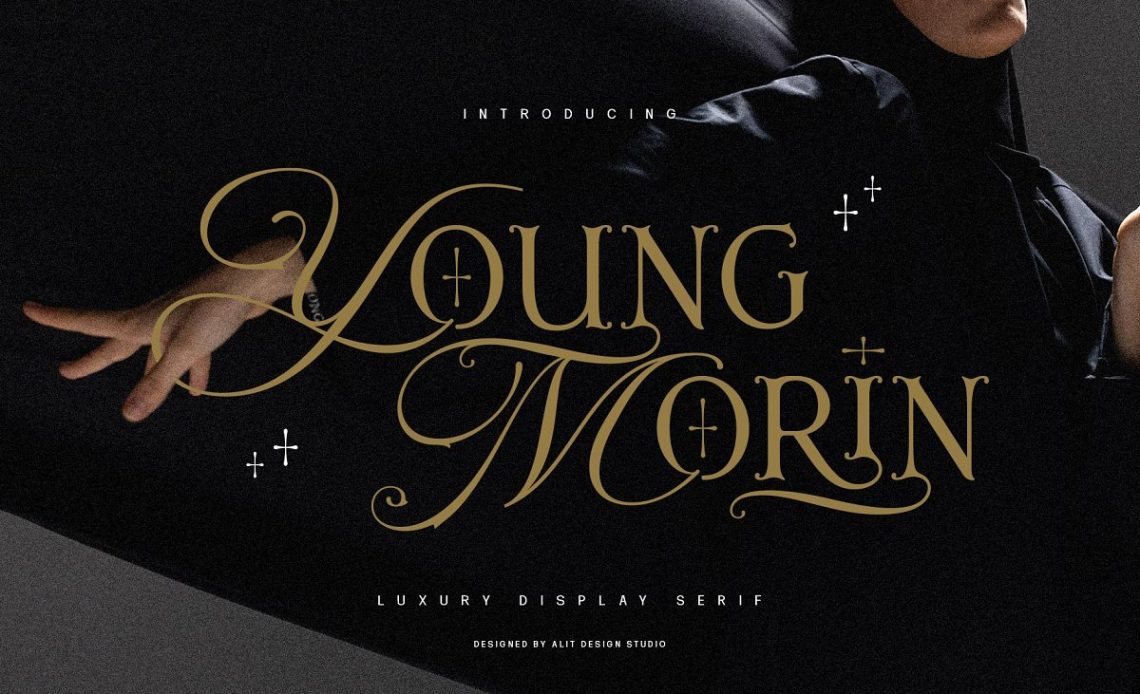
Introducing the Young Morin Typeface, a captivating and versatile font for poster designs. Created by the talented designer Alit Suarnegara, this font combines an elegant script style with a classic serif font, resulting in a bold yet modern and elegant design.
Inspired by the timeless Roman design, the Young Morin font incorporates contemporary elements to stay in line with current trends. This unique combination creates a design that is both frightening and captivating, making it perfect for young individuals who dare to be different and stand out from the crowd.
Whether you're designing magazine covers, brochures, flyers, Instagram ads, or Canva designs, the Young Morin font will add a touch of uniqueness and bravery to your creations. Its modern and bold concepts will elevate your designs and attract attention from your target audience.
What sets the Young Morin font apart is its ease of use. It is compatible with both design and non-design programs, thanks to its Unicode (PUA) support. With 660 glyphs and numerous unique and interesting alternative options, you'll have endless possibilities to explore and create stunning designs.